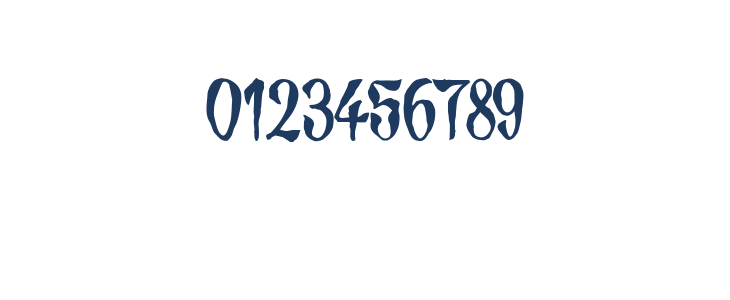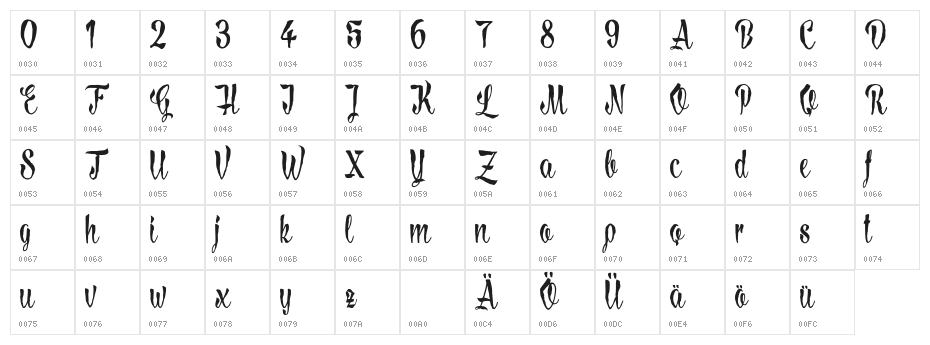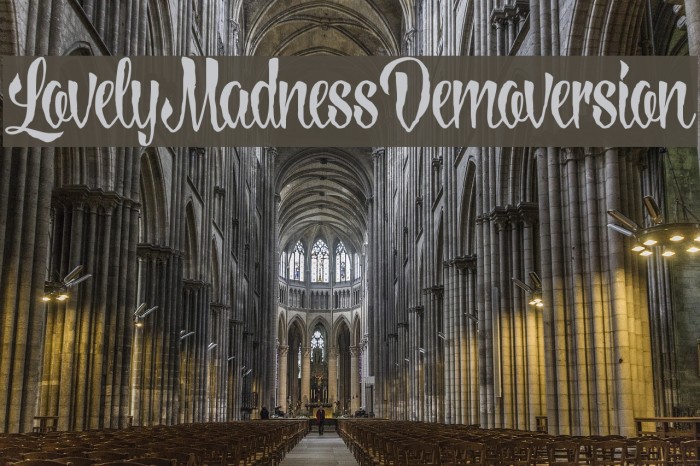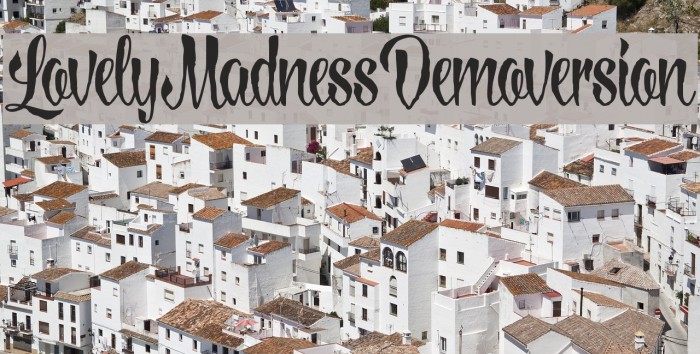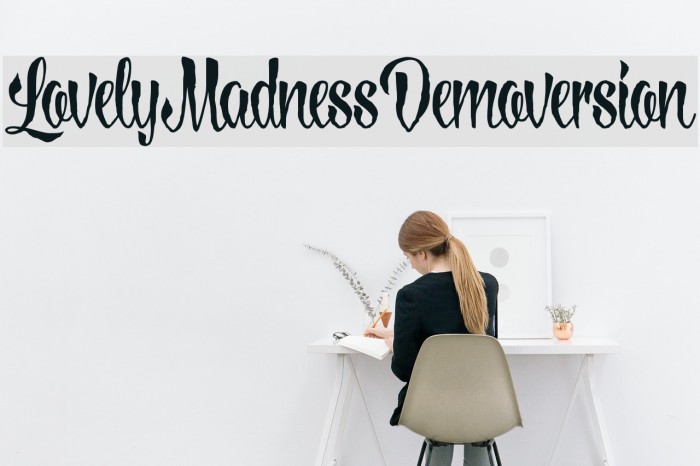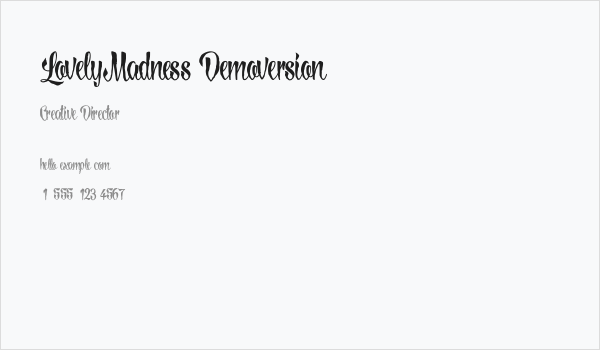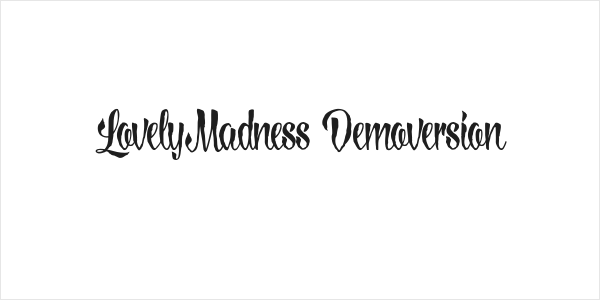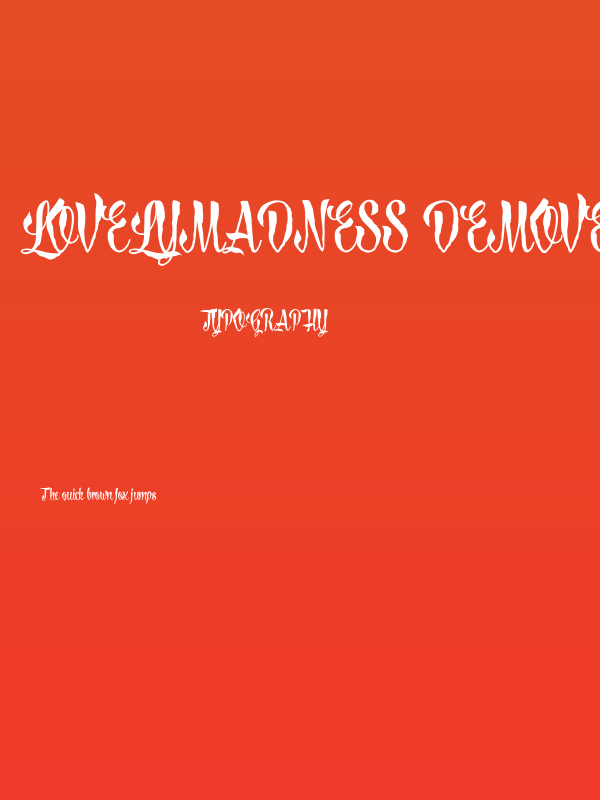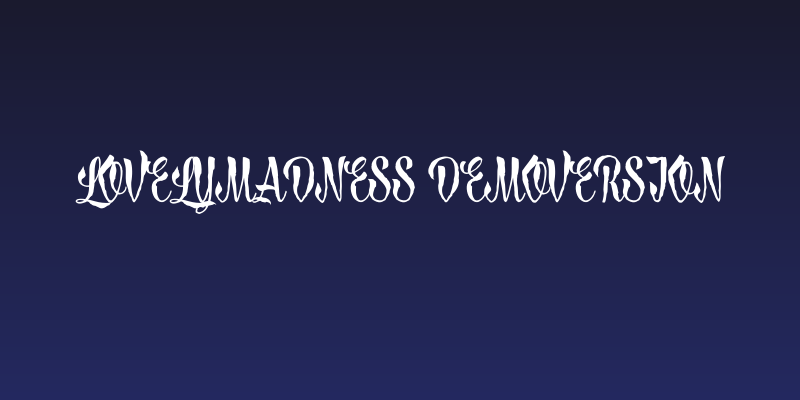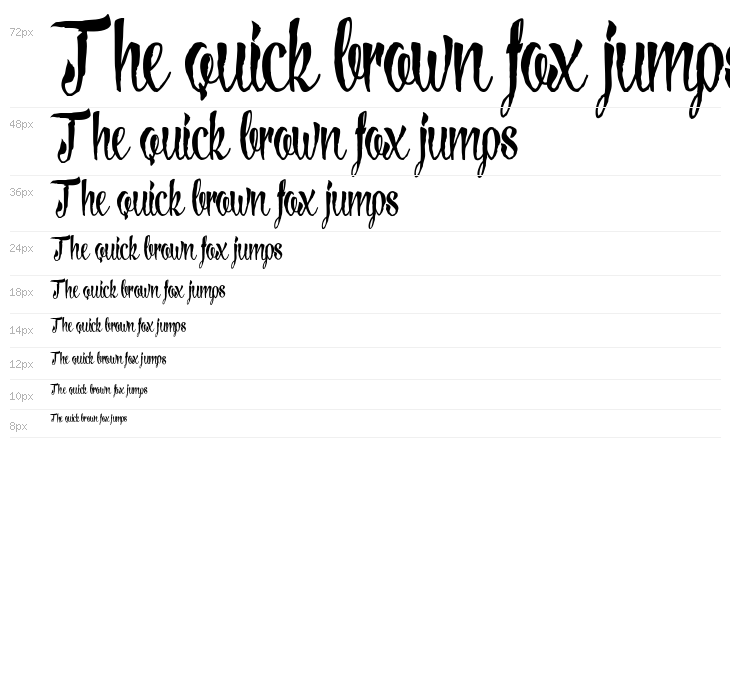
LovelyMadness_Demoversion Font
LovelyMadness_Demoversion Description
This font features a bold and expressive script style with a hand-drawn appearance. The uppercase letters are characterized by their dramatic flourishes and varying stroke widths, giving them a dynamic and artistic feel. The lowercase letters maintain a consistent flow, with elegant curves and loops that enhance the font's handwritten aesthetic. Numbers and special characters are crafted with the same attention to detail, ensuring a cohesive look across all elements. The overall design exudes a sense of creativity and spontaneity, making it ideal for projects that require a personal touch.